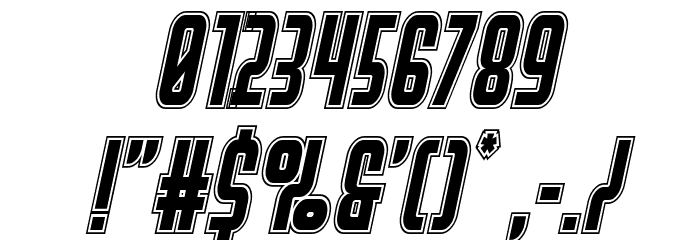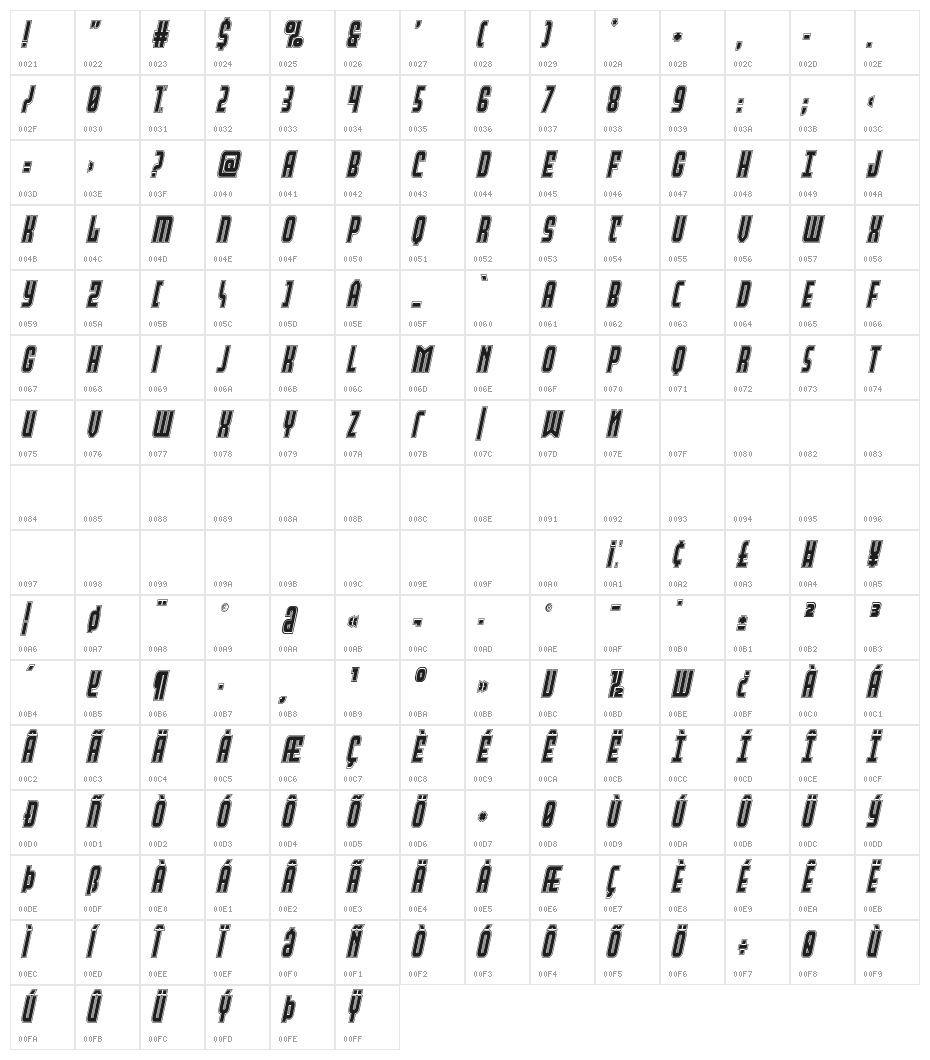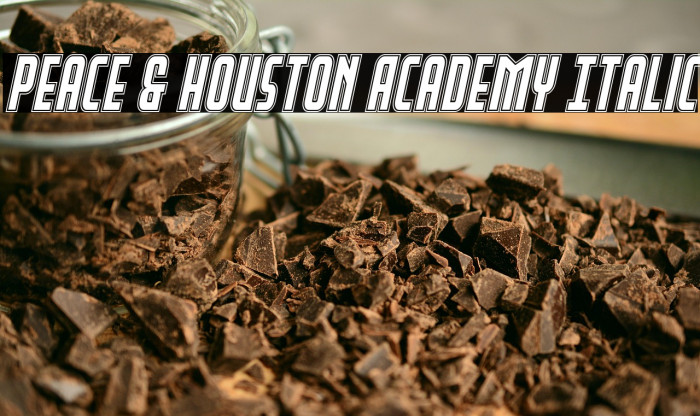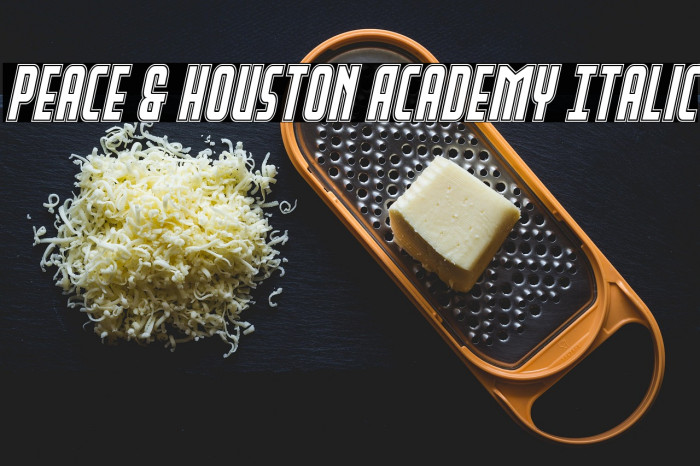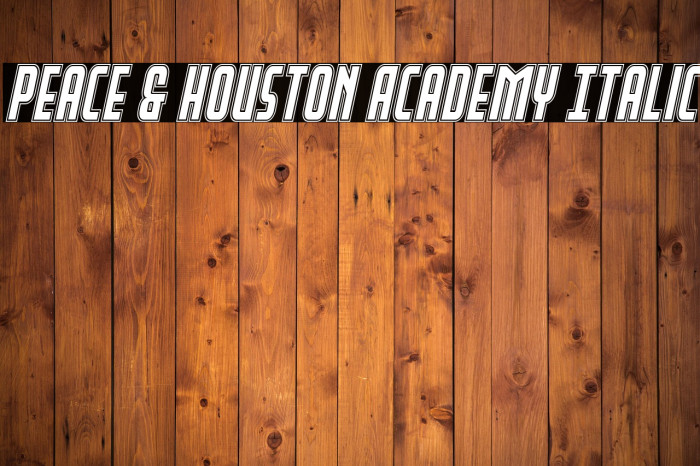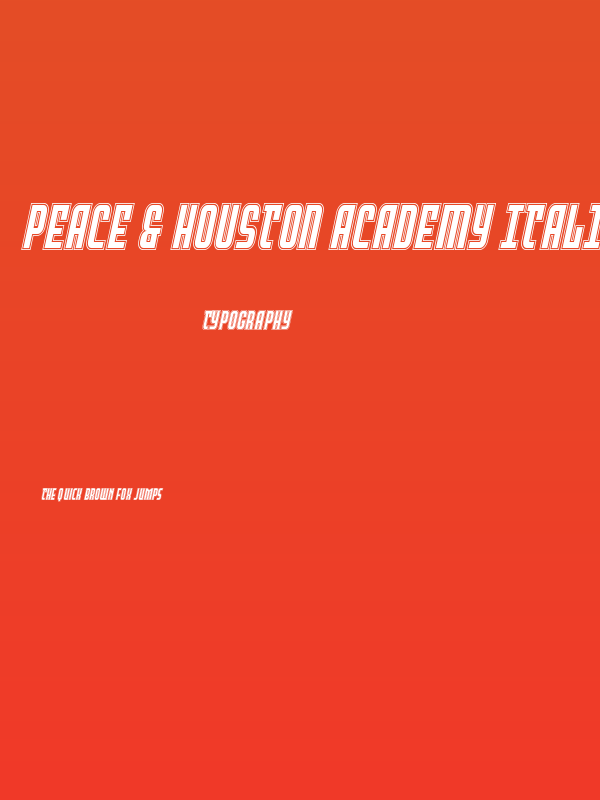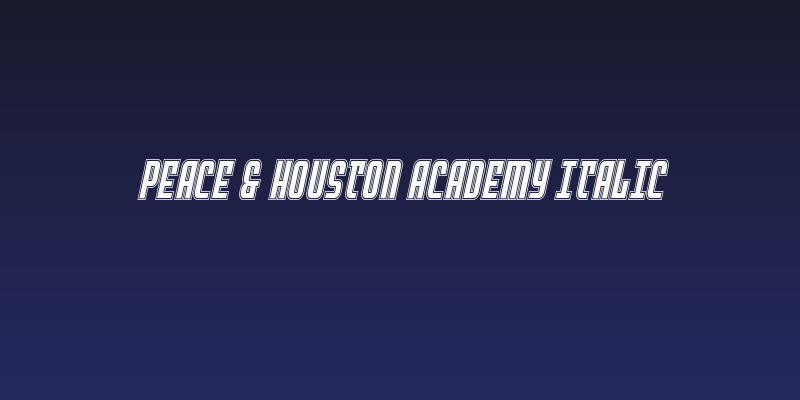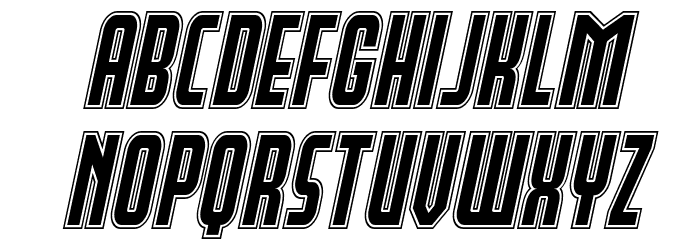
Peace & Houston Academy Italic Font
Peace & Houston Academy Italic Description
This font features a bold and dynamic design with a strong italic slant, giving it a sense of movement and energy. The characters are outlined, creating a striking contrast between the thick strokes and the inner space. This style is reminiscent of sports or racing themes, with its sharp angles and clean lines. The uppercase and lowercase letters maintain a consistent style, ensuring readability while adding a unique flair. The numbers and special characters are designed to match the overall aesthetic, making this font versatile for various uses.